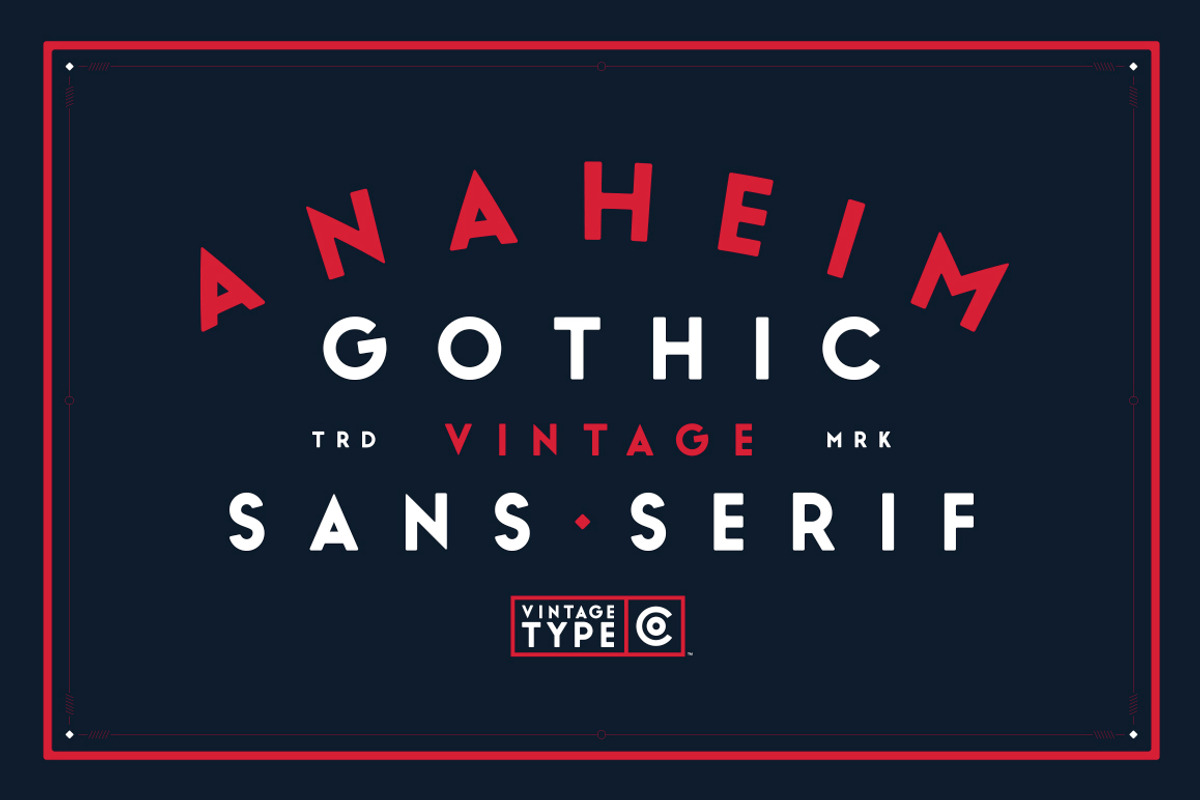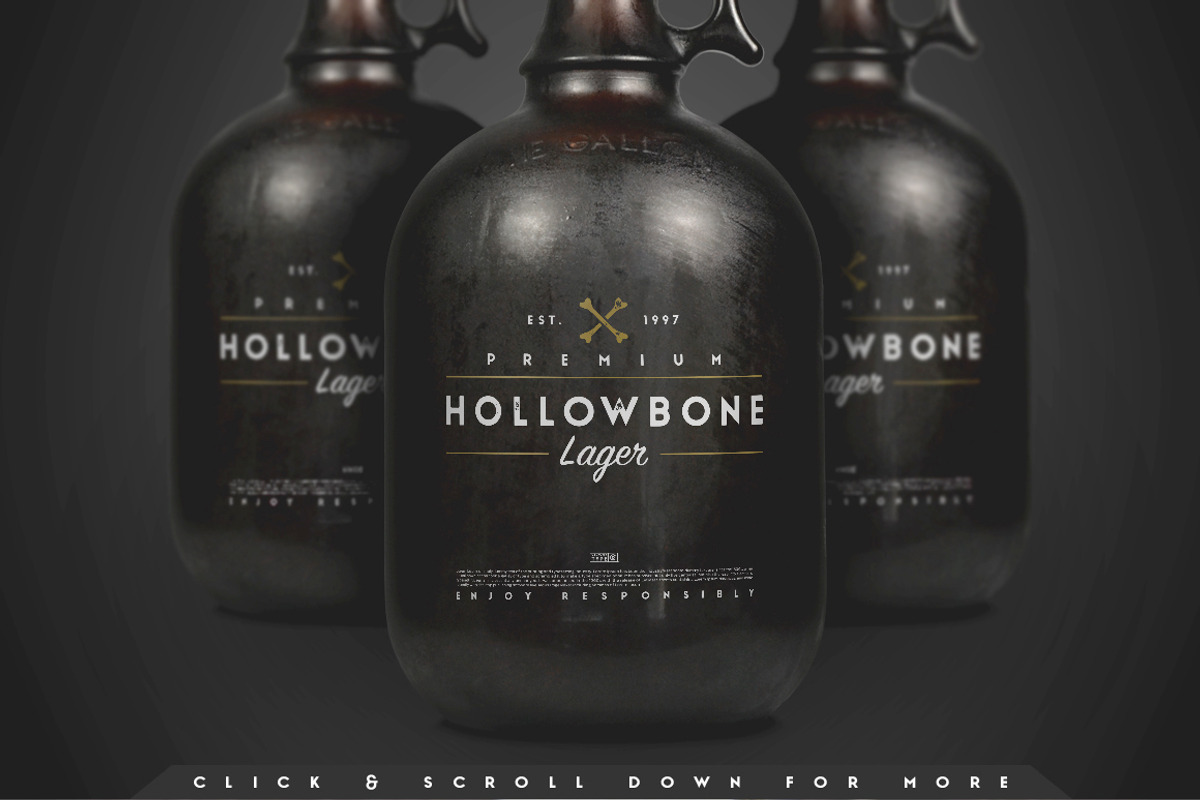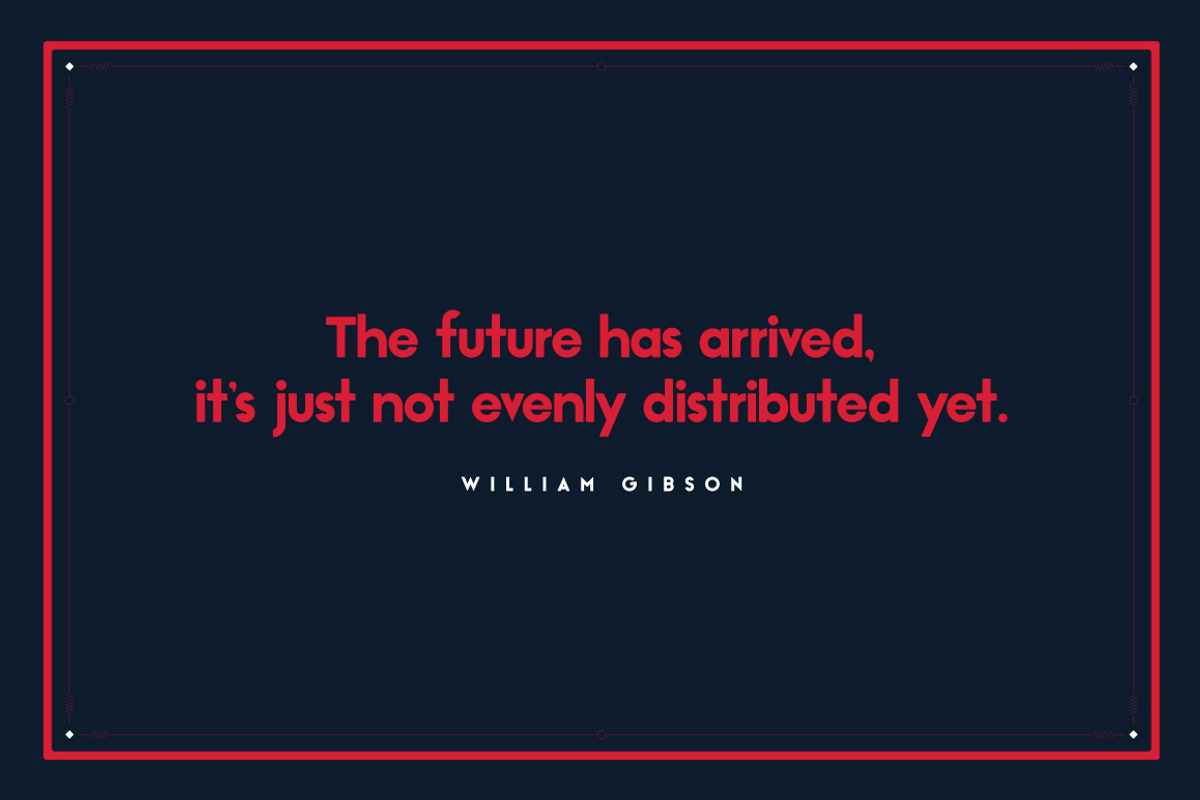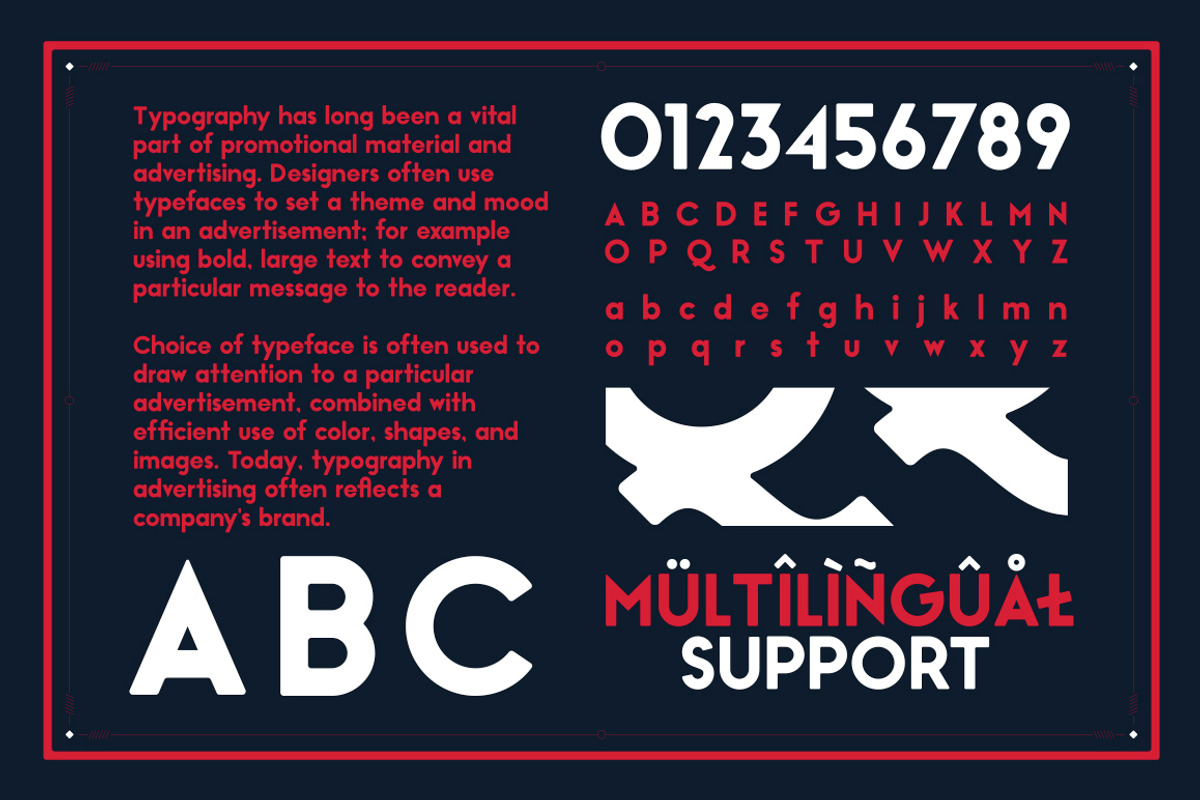
Anaheim Gothic Font
Anaheim Gothic Font by Vintage Type Company is a font selected for branding, posters, packaging, typography.
- The font comes with full upper & lower case, including a couple of basic ligatures, and also comes equipped with multilingual support for th
Why Anaheim Gothic Font is worth a look
Anaheim Gothic Font by Vintage Type Company fits naturally into Branding, posters, packaging, typography.